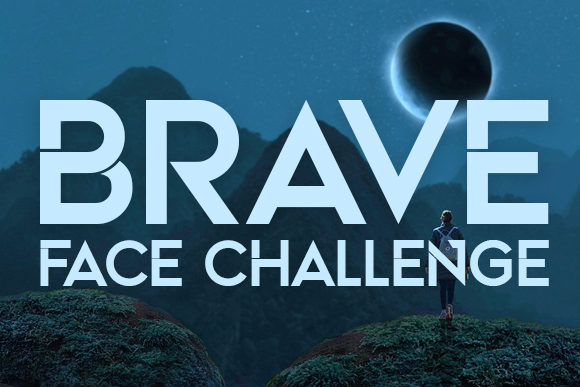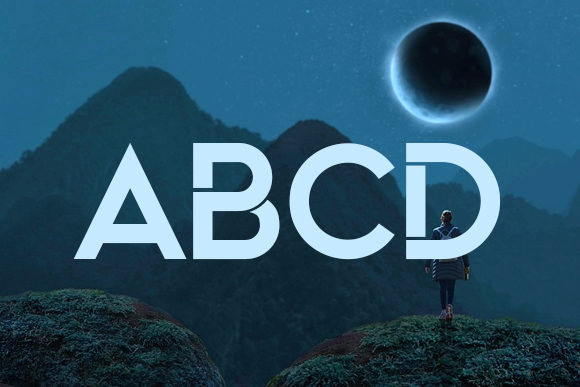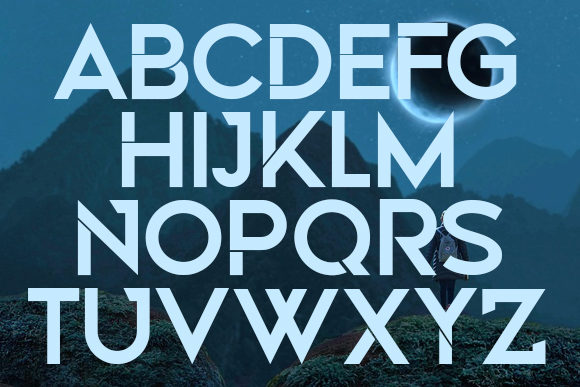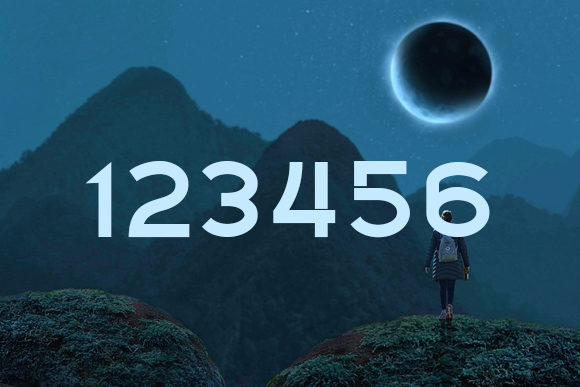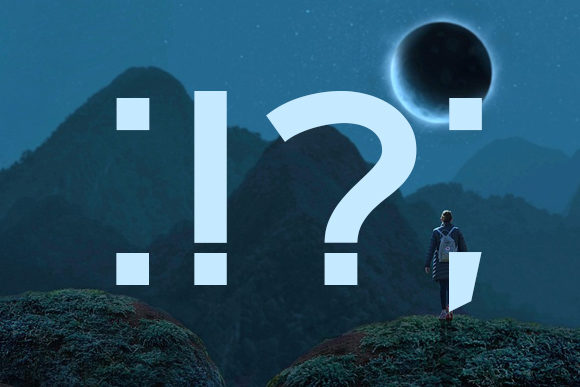
Introduction to Nehad Font
There’s nothing quite like the thrill of discovering a new font that sparks creativity and takes your designs to the next level. It’s that moment when you stumble upon a font that seems to perfectly capture the essence of your project, elevating your work to new heights. For designers, this moment is pure gold, and it’s exactly what happens when you encounter the Nehad Font.
This beautiful display font is a game-changer for any creative project. With its simple yet sharp design, it adds a touch of sophistication to any text. Whether you’re working on a high-quality logo, a stunning website, or a visually striking brochure, the Nehad Font is an excellent choice.
Key Features of Nehad Font
- High-quality design resource ideal for creative projects, offering a unique and stylish touch.
- Comes in a single size, making it easy to use across different design projects.
- Designed with a high resolution, ensuring crisp and clear display on various devices and screens.
- Perfect for use in graphic design, digital art, and other creative projects where a unique font is required.
Honest Review: Nehad Font
As a designer, I’m always on the lookout for high-quality fonts to elevate my creative projects. Recently, I stumbled upon the Nehad Font, and I must say, it’s been a game-changer for me.
- Unique and elegant design: The Nehad Font has a beautiful, modern design that adds a touch of sophistication to any project.
- Limited character set: The Nehad Font seems to be limited to only a few languages, which may be a concern for designers working on multilingual projects.
- Not suitable for small text: Due to its elegant design, the Nehad Font may not be the best choice for small text or body copy.
Nehad Font
Tips for Getting the Most Out of Nehad Font
The Nehad Font is commonly used in creative projects such as graphic design, digital art, and web design. It’s also a great choice for creating custom logos, icons, and graphics.